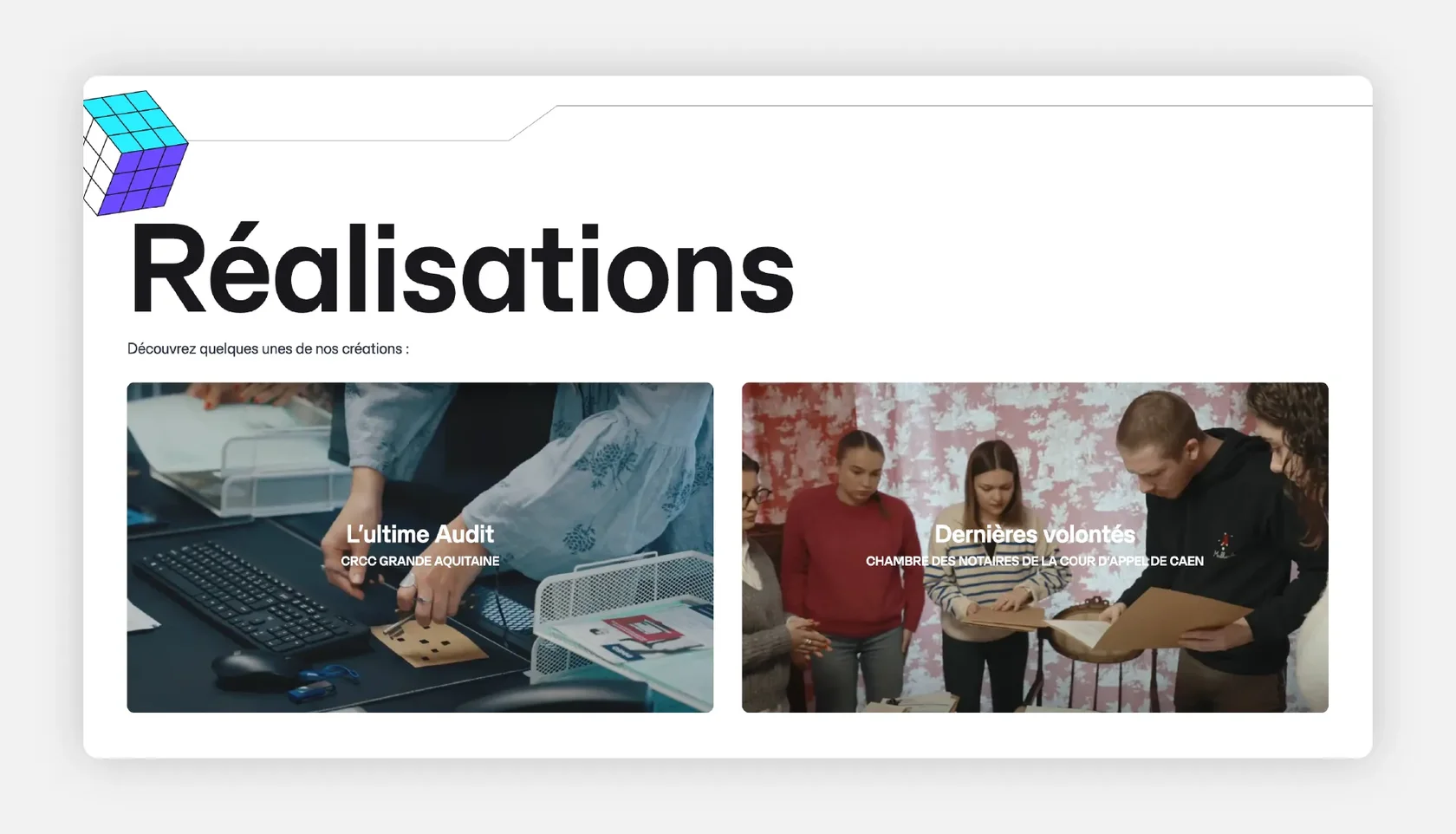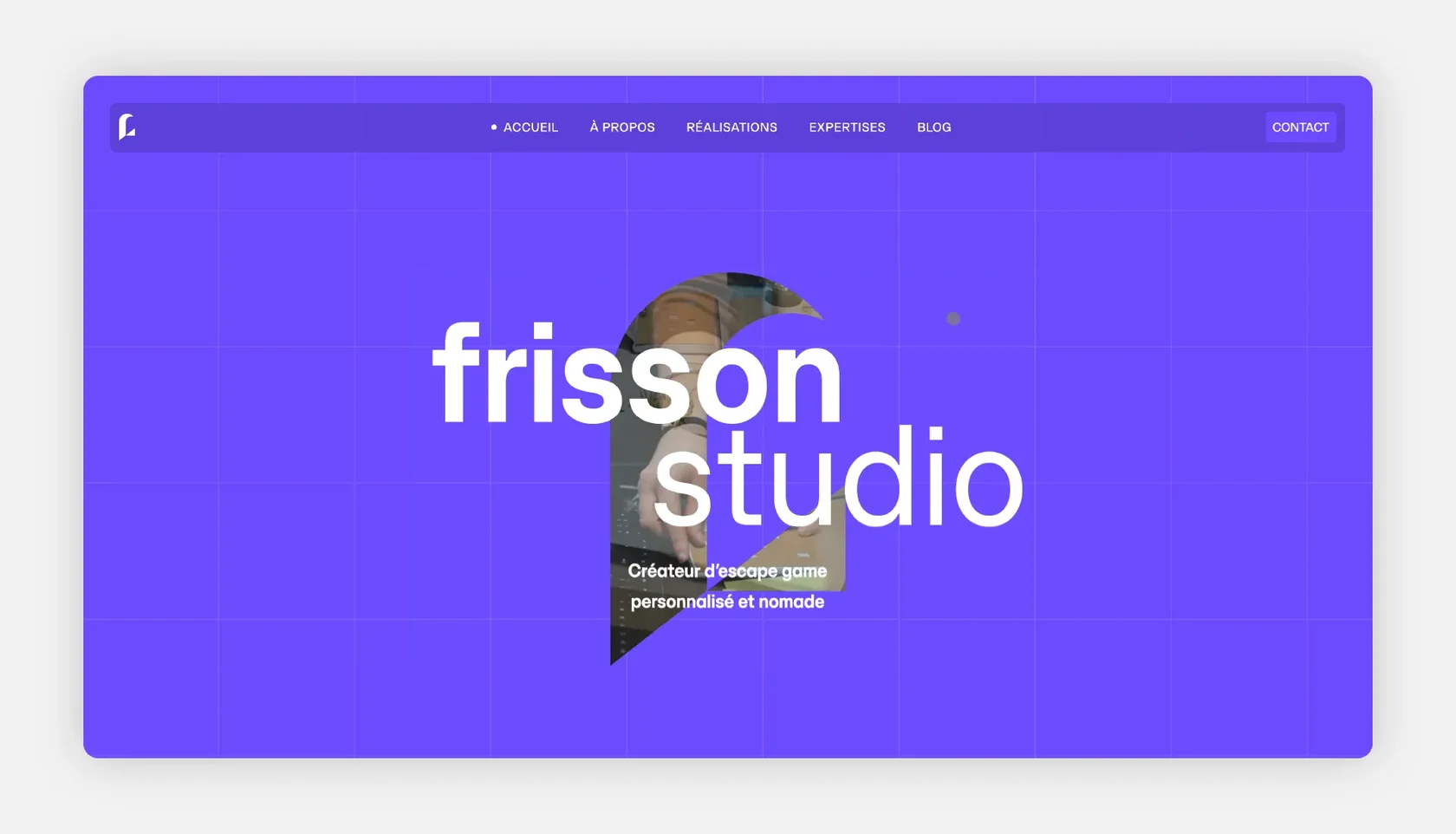
Frisson Studio — Custom Escape Game Design
Font: SFT Schrifted Sans (Compact Regular, Compact DemiBold).
Use case: Logo, website typography, branding.
About the Project:
Frisson Studio specializes in creating fully customized escape games, handling everything from storytelling and puzzle design to set creation and player engagement. Their goal is to craft immersive experiences where every clue, setting, and scenario seamlessly integrates into the adventure. To reflect this structured yet dynamic approach, their website uses SFT Schrifted Sans, ensuring clear and engaging communication.
Why SFT Schrifted Sans?
Escape games require a balance of logic, creativity, and interaction, and typography plays a key role in shaping the experience. SFT Schrifted Sans brings a modern, structured look that enhances readability while maintaining a playful and immersive feel, aligning perfectly with Frisson Studio’s mission to create engaging and memorable experiences.